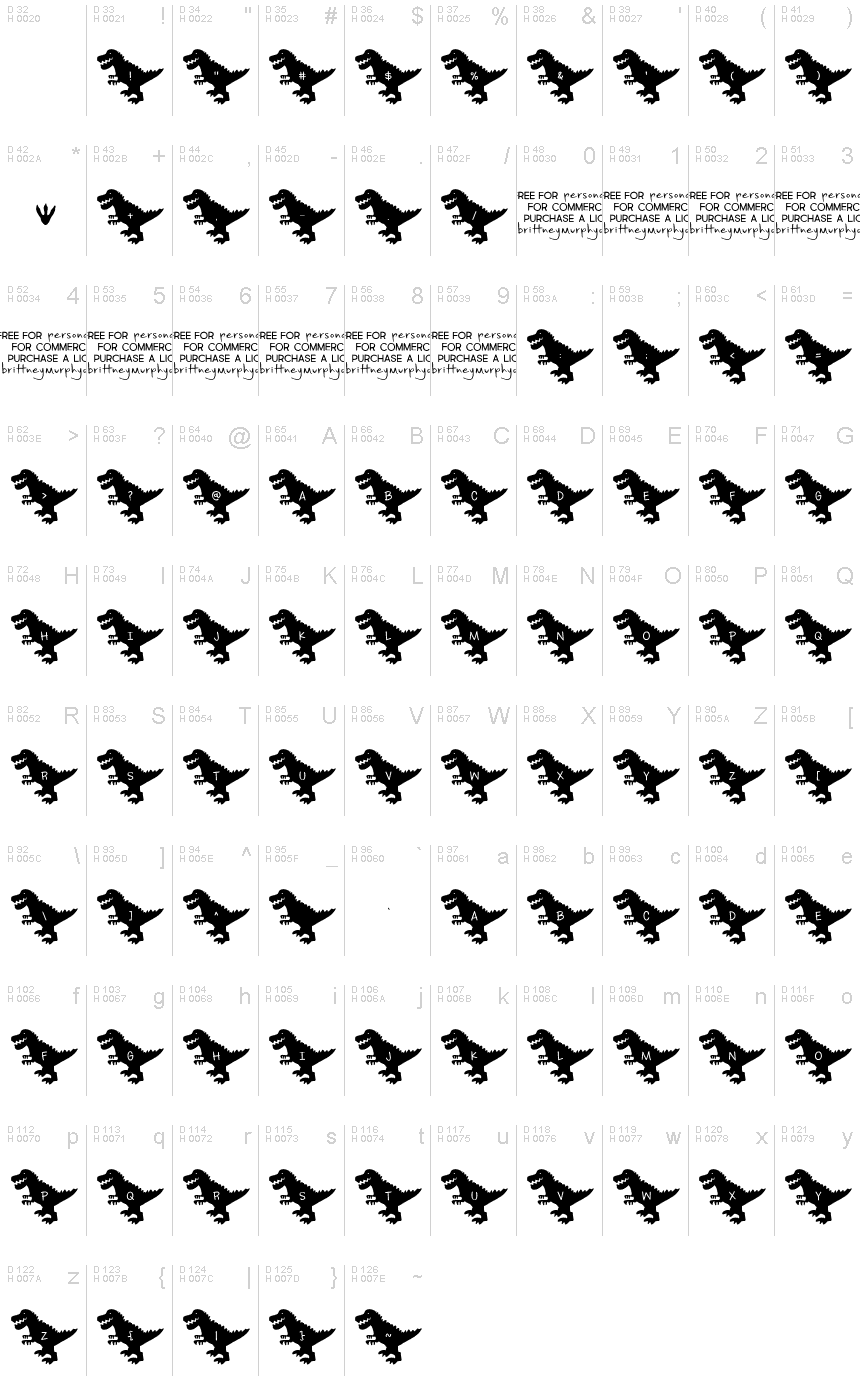
Lettersaurus*Rex Regular
Roar into your next project with Lettersaurus*Rex font! Designed by Brittney Murphy Design, this display typeface is perfect for adding a playful touch to any design. With its semi-light weight and decorative style, this font is versatile enough to use in a variety of projects such as children's books, posters, and even branding for businesses with a fun-loving spirit. Let the dinosaur-inspired letters take you on a journey back in time while delivering a bold statement to your audience. Unleash your inner child and bring some prehistoric flair to your next design with Lettersaurus*Rex!
The Lettersaurus Rex font is a fun dinosaur type featuring tyrannosaurus rex dinosaurs with letters on them.
Special Characters:
Use the underscore (_) for a blank t-rex.
Use the asterisk (*) for a t-rex footprint!